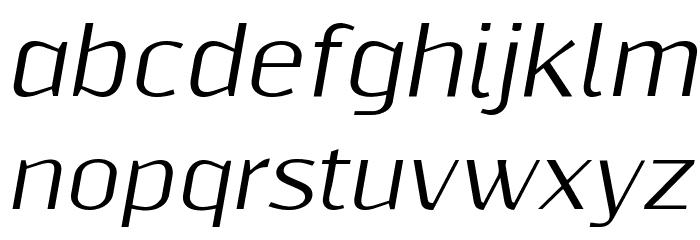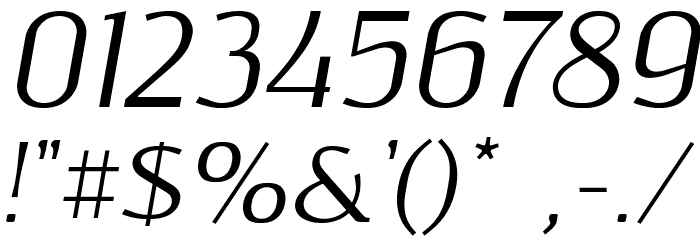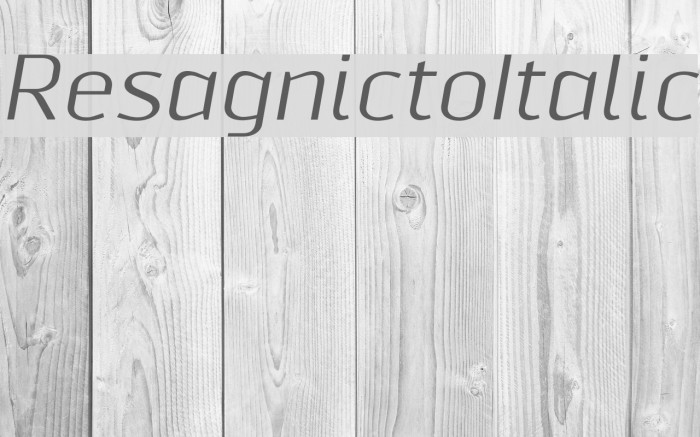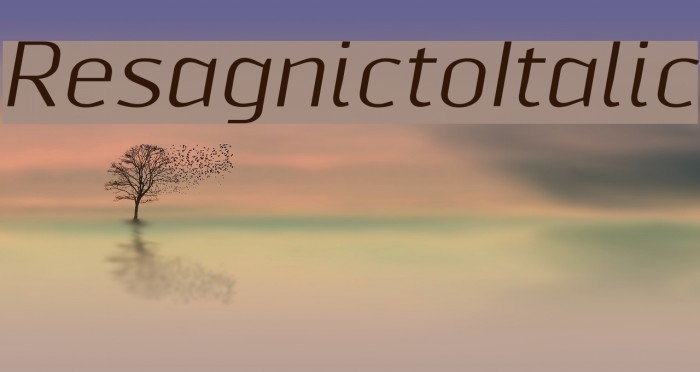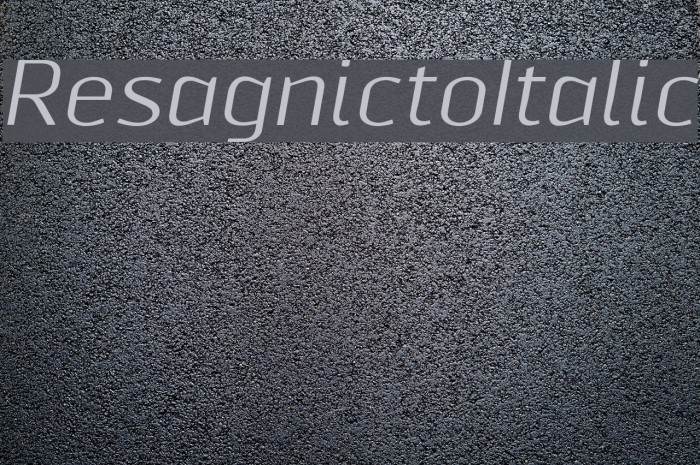
ResagnictoItalic Font
This font exhibits a sleek and modern design with a slight italic slant, giving it a dynamic and forward-moving appearance. The characters are clean and well-defined, with a consistent stroke width that maintains readability across various sizes. The uppercase letters are tall and elegant, while the lowercase letters are slightly more rounded, offering a harmonious balance. The numerals are clear and distinct, making them suitable for both text and numerical data. Special characters are well-integrated, ensuring versatility in different contexts. Overall, this font combines functionality with a touch of sophistication, making it ideal for contemporary design projects.
A modern, italic sans-serif font with clean lines and a dynamic slant.
- Proposed Projects: Ideal for branding, advertising, digital content, and editorial design.